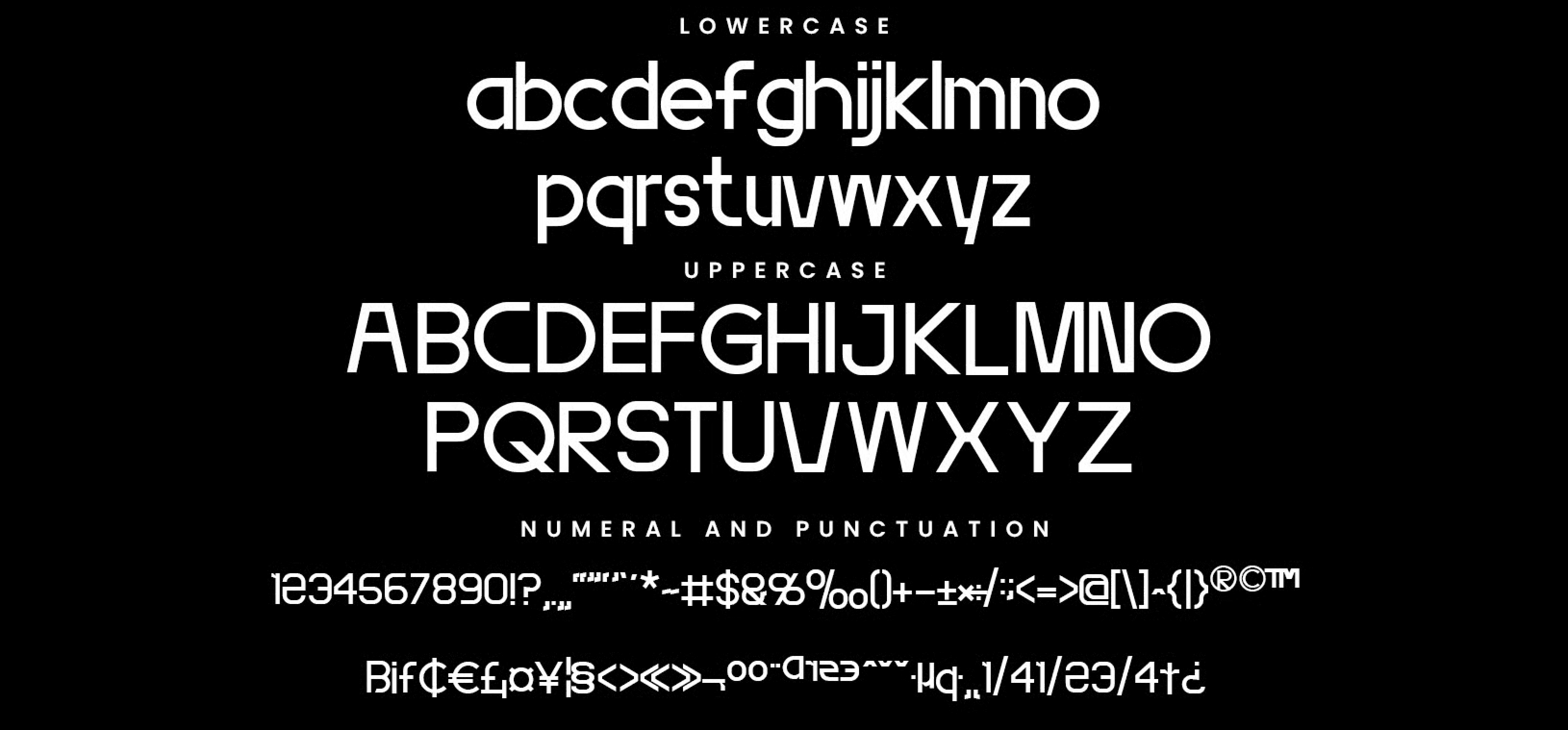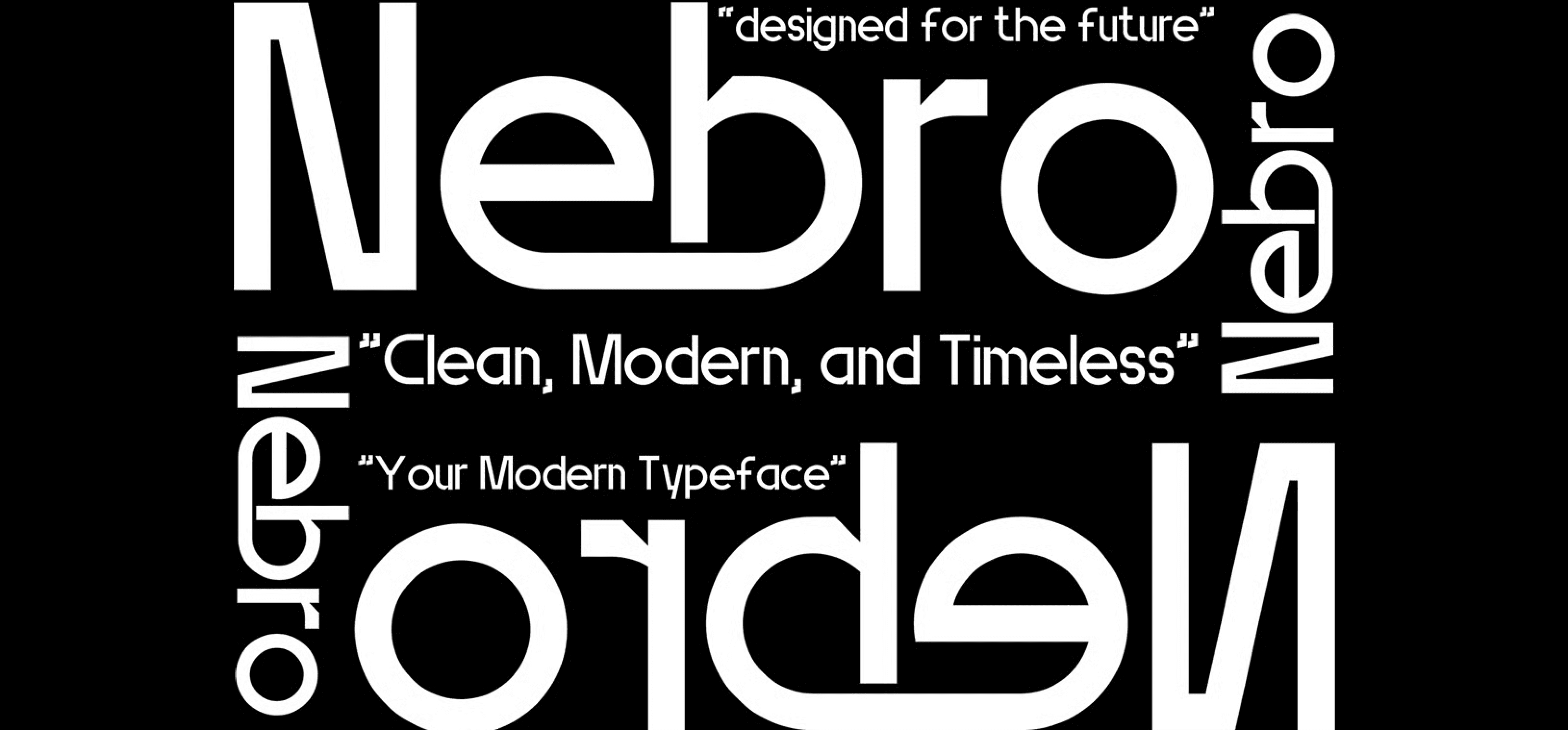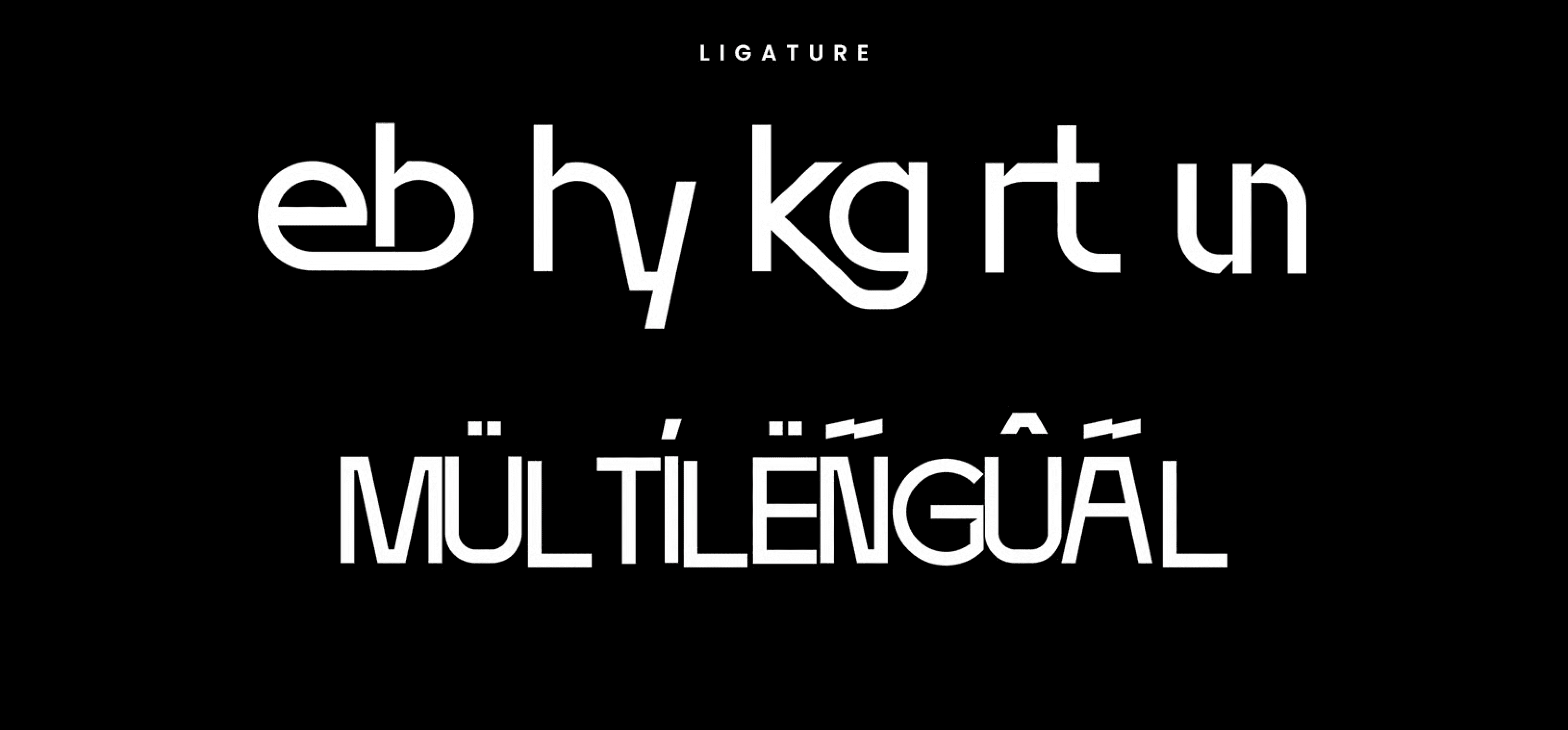
Nebro is a modern sans serif typeface featuring clean lines and balanced letterforms. Its minimalist design makes it highly versatile for a wide range of applications including branding, logos, web design, editorial layouts, and product packaging. With its consistent stroke weight and simple shapes, Nebro is ideal for projects that require a contemporary and professional appearance. The font includes uppercase and lowercase letters, numerals, punctuation, and multilingual support.